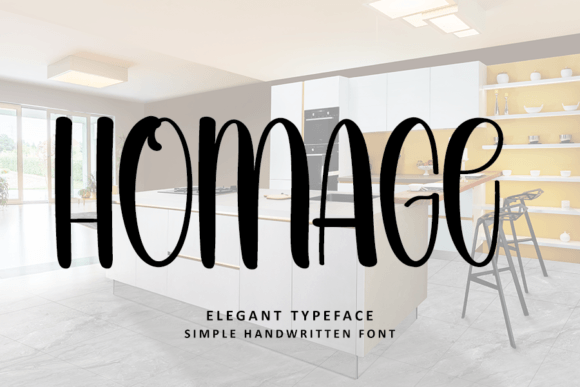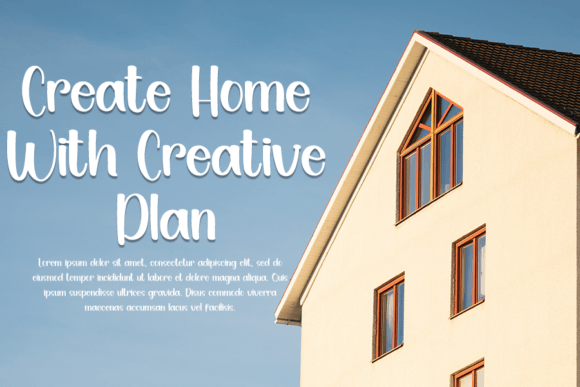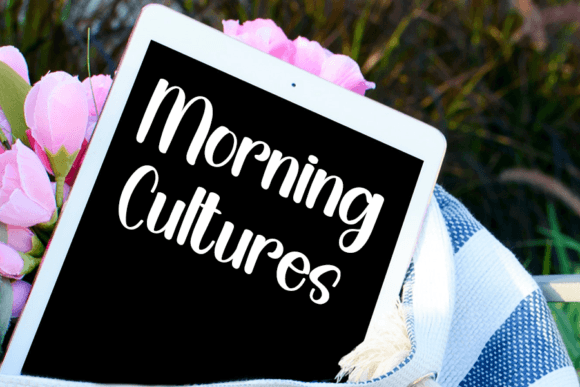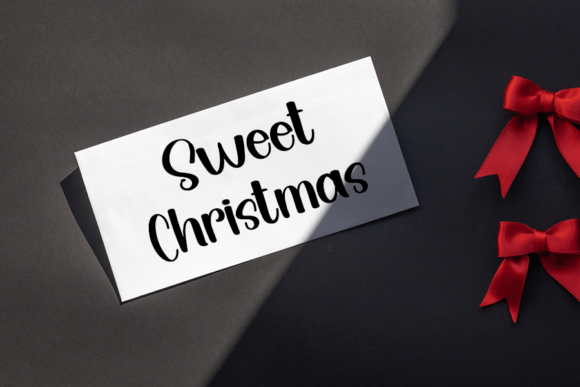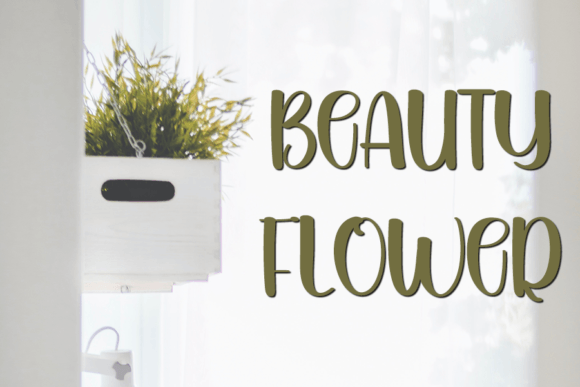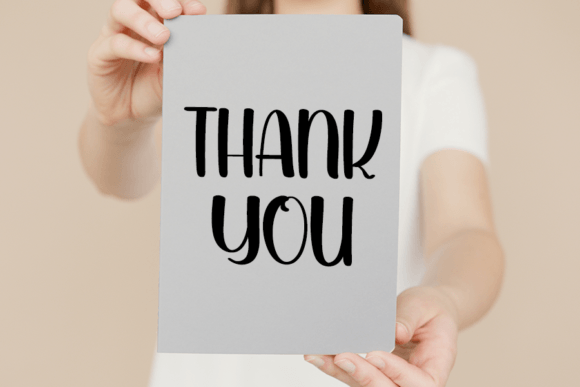
Homage Font
Homage Font: Elegant Handwriting for Sophisticated Designs
“Homage” is a gorgeous handwritten font that exudes charm and sophistication. It’s perfect for various design projects, from invitations to product packaging.
Key Features of Homage Font
• Elegant Style: Homage combines grace with timeless beauty.
• Versatile Use: Suitable for many projects, including branding and greeting cards.
• Charming Appearance: Adds a touch of allure to your work.
Invitations and Stationery
Homage’s elegant style is ideal for creating sophisticated wedding invitations and special event materials.
Use Homage to design refined logo designs and branding materials that convey luxury and sophistication.
Poster and Print Design
The font’s charming look makes it perfect for creating eye-catching posters and print materials that demand attention.
Why Choose Homage Font?
Homage offers more than just beautiful letters. Here’s why it stands out:
• Enhances overall aesthetics of your projects
• Creates a harmonious and captivating atmosphere
• Adapts well to various design themes
By using Homage, you open up new design possibilities. Its sophisticated style works well in many contexts, from greeting cards to product packaging. The font’s ability to convey refinement can inspire creative ideas and help you approach projects from a fresh perspective.
If you’re looking for a font that combines elegance with versatility, Homage is an excellent choice. It’s perfect for adding a touch of sophistication to your work, especially for projects that need a timeless and refined feel.
Explore how Homage can transform your designs. From formal invitations to creative branding projects, this font brings a graceful and captivating quality to your creations.